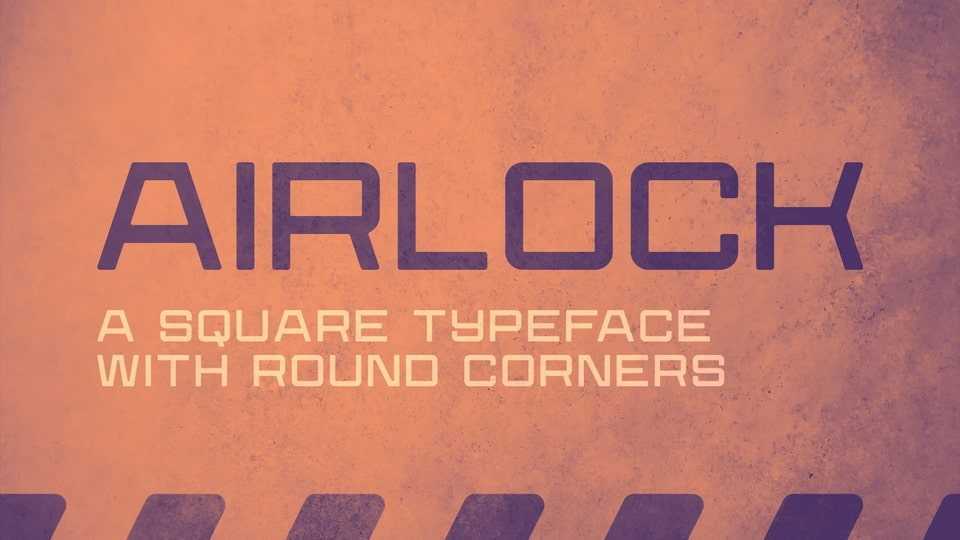
Download Airlock font, a bold square typeface with rounded corners, designed to combine technical precision with a softened edge. Its geometric letterforms evoke a futuristic and industrial mood.
Designer: Edward Batkins